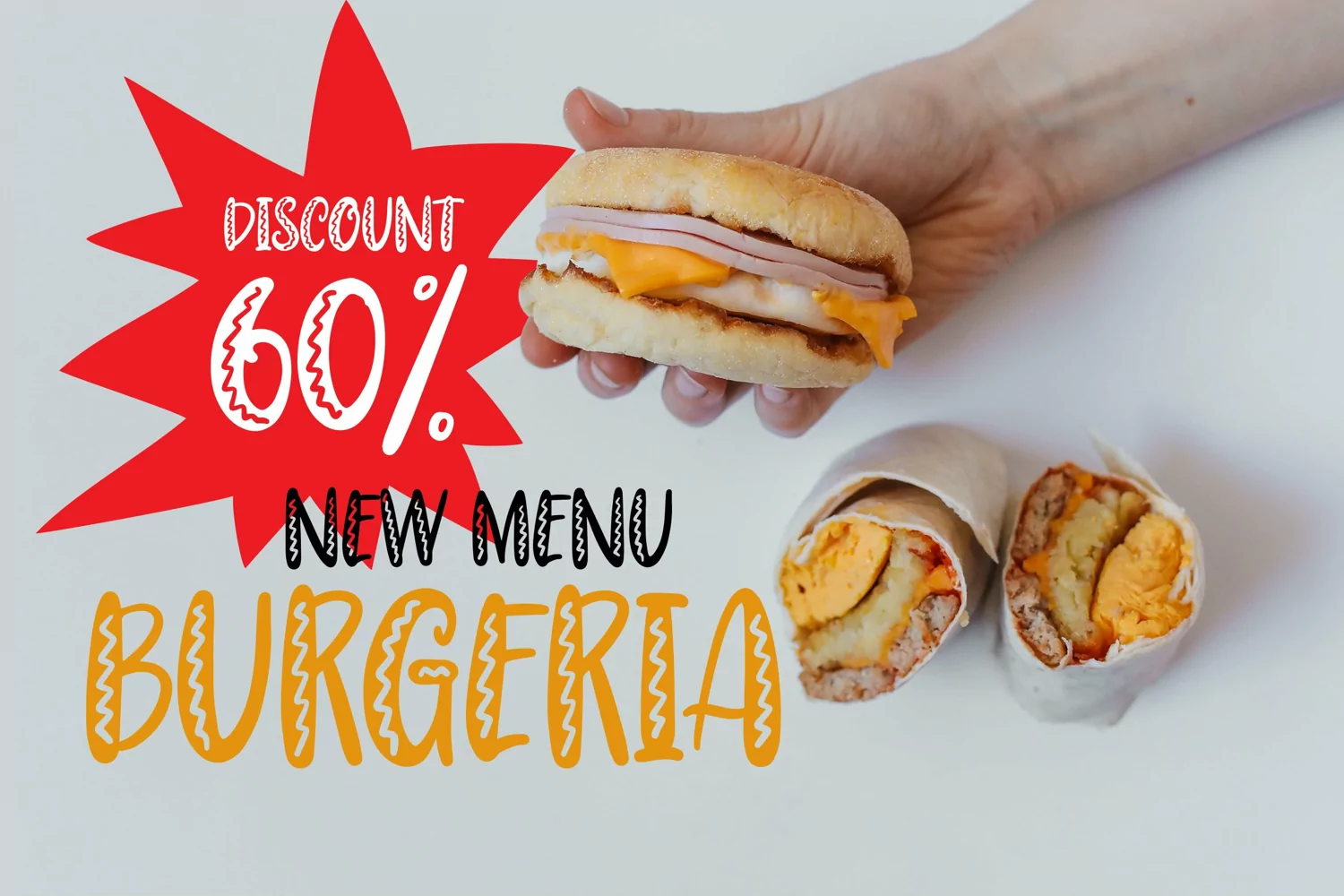
Yellow Mustard - Handlettering Font that contain lowercase, uppercase, symbol, and also support multi language. There’s a lot ligatures in this font. This Font also comes with ligatures, alternates and many more. this font suitable for fashion, branding, catalog and other design what you want.